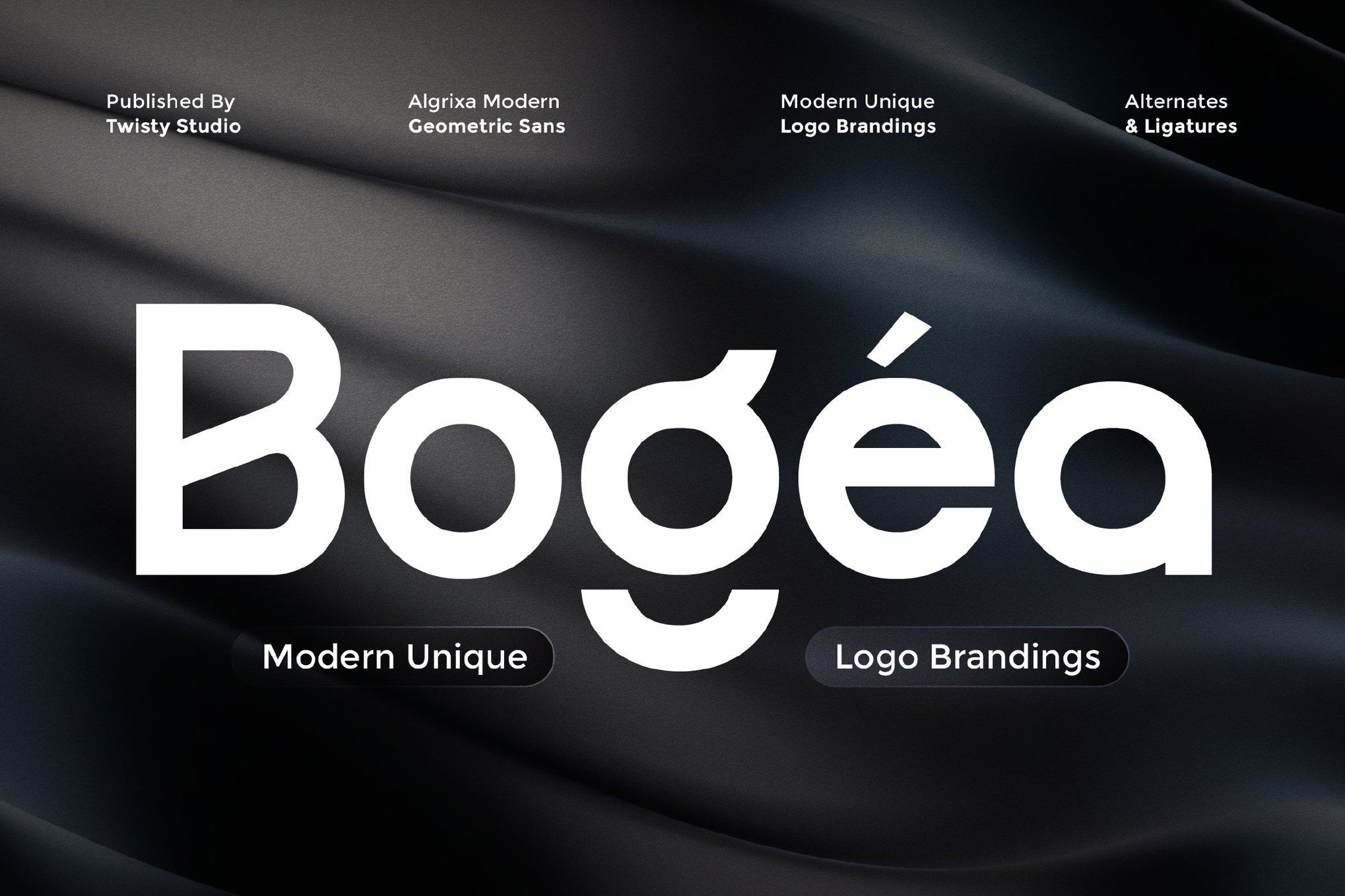
Bogea Font
Bogea Font is a professionally designed typeface that delivers clarity, structure, and consistent performance across various design applications. Bogea is a clean and modern geometric sans serif font crafted with precision, balance, and contemporary style. Featuring structured shapes, smooth curves, and minimalist letterforms, this typeface delivers a professional yet stylish appearance suitable for a wide range of creative projects. Its geometric construction creates a sleek and modern aesthetic that works beautifully for both digital and print designs.
Features: Uppercase & Lowercase Alternates & Ligatures Numerals & Punctuation Multilingual Support
Who Should Use Bogea? Bogea is perfect for designers, entrepreneurs, agencies, and creatives who need a versatile modern sans serif font with a clean geometric style. It’s ideal for branding, editorial work, corporate design, and modern visual identities that require clarity, sophistication, and professionalism.
Suitable For: Modern and minimalist branding Corporate and business logos Editorial and magazine layouts Technology and startup branding Website headers and UI design Social media graphics and advertisements Packaging and product design Professional presentations and marketing materials